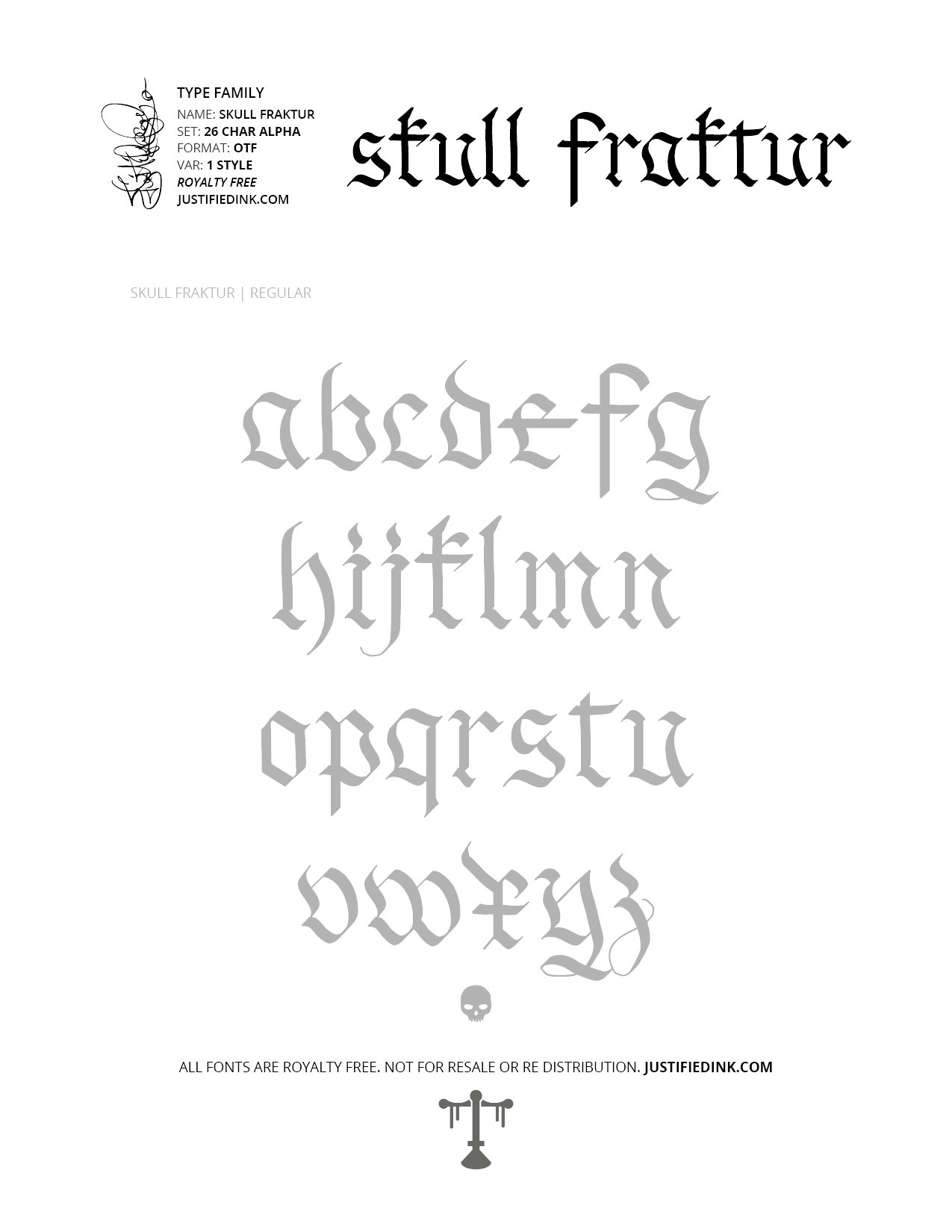
Skull Fraktur (1 style) - Custom Font by Justified Ink
Envision a throne of fascist bones as a nice pairing with this font. The first Fraktur typeface arose in the early 16th century, when Emperor Maximilian I commissioned the design of the Triumphal Arch woodcut by Albrecht Dürer and had a new typeface created specifically for this purpose, designed by Hieronymus Andreae.
Although Fraktur as a font has been at-times used by menacing and unsavory people in history, our goal is to not let them have this font. We are reclaiming this from anyone who would use it for destructive causes and restoring its artful and rich origins.